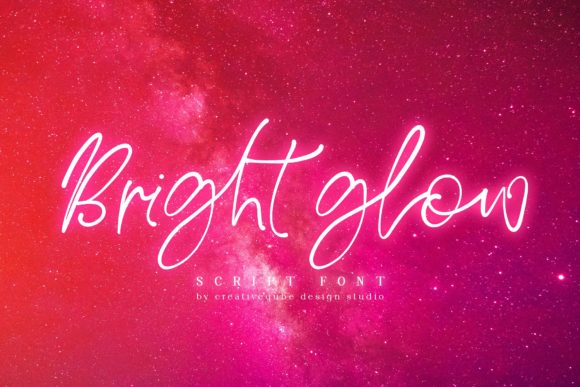
Unleash the mesmerizing charm of your digital creations with Bright Glow Font, an enchanting script font brimming with warmth and character. Let your words dance with delight as they adorn your designs, radiating a cheerful and friendly aura that captivates all who behold it. This captivating font possesses an inherent vibrancy, its bright and bouncy strokes evoking a sense of joyous optimism that is sure to uplift your spirits.
Bright Glow Font's playful nature is undeniable, its energetic curves and sweeping lines creating a dynamic visual rhythm that commands attention. Embrace the font's endearing personality and watch as your projects come alive with a touch of whimsy and charm. Find endless possibilities for expression with Bright Glow Font's extensive character set, including a complete array of lowercase alternatives and a treasure trove of ligatures that mimic the authenticity of handwritten artistry.
Immerse yourself in a world of creative enchantment as you witness Bright Glow Font transform your designs into captivating masterpieces. Whether you're crafting logos, social media graphics, or eye-catching headlines, this font's infectious energy will infuse your work with a vibrant allure that leaves a lasting impression.